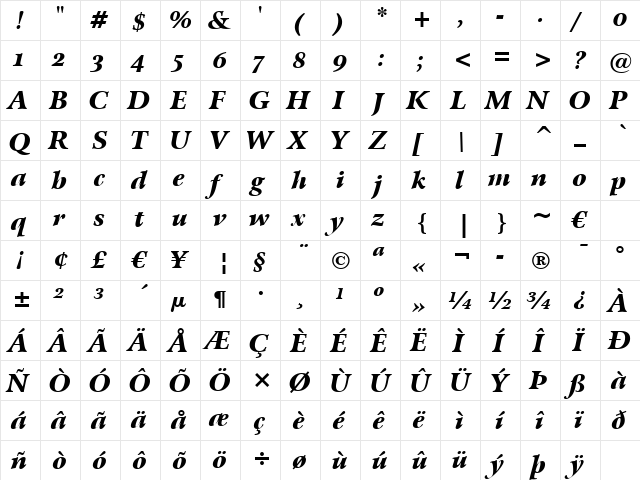
Arrus Blk OSF BT Black Italic
Design Context for Arrus Blk OSF BT Typeface
Arrus Blk OSF BT takes a measured approach to typography — its balanced proportions and neutral character make it a reliable workhorse for both digital and print work. Its italic angle brings a sense of urgency and motion to the letterforms.
Pro Tip: Try Arrus Blk OSF BT for annotation and caption copy alongside an upright companion — the contrast in angle creates a dynamic but ordered typographic system.